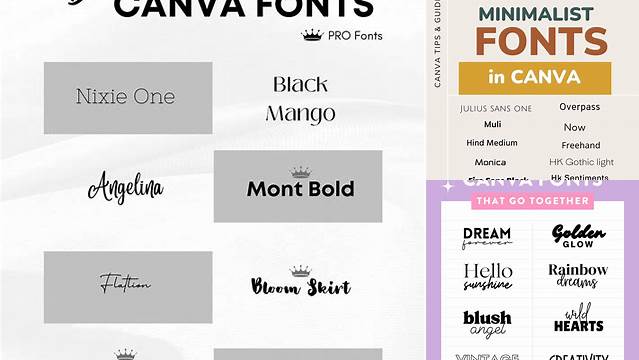
Best Popular Canva Fonts Free: Stunning Designs
Hey guys! Ready to jazz up your designs without spending a dime? Canva, the ultimate design playground, offers a treasure trove of fonts. Choosing the right font can make or break your design. That's why we're diving into the world of popular Canva fonts free, so you can elevate your projects from drab to fab. I'll walk you through some fantastic font options, how to find them, and some tips on using them effectively. Get ready to transform your visuals with some awesome typography!
What Makes a Font 'Popular' in Canva?
So, what makes a font a superstar in the Canva universe? Well, a popular Canva font free isn't just about looking pretty; it's about versatility, readability, and how well it complements different design styles. Popular fonts are often those that strike the perfect balance between aesthetics and functionality. They need to be clear enough to read at any size, versatile enough to be used across various projects, and stylish enough to catch the eye. Think about it – a font used for a bold headline needs to pack a punch, while the body text demands something easy on the eyes. Canva's popular fonts are the workhorses of design, the reliable choices that always deliver. Some fonts are trendy because they're the go-to for specific aesthetics, like a modern, minimalist look. Others are classic choices, timeless and always in style. Ultimately, the 'popularity' of a font is a mix of aesthetic appeal, functional suitability, and, of course, how many designers are actually using it! Canva keeps track of what fonts are trending, often showcasing them prominently in their design interface. So, if you're looking for the cream of the crop, keep an eye on those frequently featured options. Choosing a popular font can be a shortcut to great design, as it means you're using something that's already proven to work. However, don't be afraid to experiment and find fonts that suit your own unique style – even if they're not the most popular ones. After all, design is about expressing yourself, right? Popular Canva fonts free are an amazing starting point, but your creative journey should always be about making something that is uniquely you. The power to create eye-catching designs is in your hands, and with the right font choices, you can really bring your vision to life. Don't be afraid to play around with combinations, sizes, and styles. The goal is to create something that’s both beautiful and effective.
Top 5 Popular Canva Fonts Free for Headings
Let's get down to business, shall we? Here are five awesome free fonts in Canva that will make your headings pop and grab attention. Remember, the perfect heading font should be bold, easy to read, and reflect the vibe of your design. Think of your headings as the billboards of your project – they need to be clear and enticing. Here are some of my favorites that are popular Canva fonts free:
- Poppins: This font is the workhorse of the design world! It’s clean, modern, and incredibly versatile. It’s a sans-serif font with a geometric feel, making it perfect for clean, minimalist designs. It's fantastic for both digital and print projects. Whether you're creating a poster, social media graphic, or website banner, Poppins will deliver a polished, professional look. Because of its high readability, it also works well for body text, offering a consistent and cohesive feel across your design. If you need a go-to font that's both stylish and practical, Poppins is your best bet. This font is a safe and smart choice, as it is extremely popular and many designers are using it. When you want something reliable and contemporary, Poppins is the way to go.
- Montserrat: Are you looking for a font with a bit of flair but still easy to read? Montserrat is an excellent choice. Inspired by the architecture of the Montserrat neighborhood in Buenos Aires, this font has a strong, geometric shape. Its readability and versatility make it ideal for headlines, subheadings, and even short blocks of text. Its clean lines and balanced letterforms give your designs a modern and sophisticated edge. It's a great choice when you want to add a touch of style without overwhelming your design. You can try Montserrat in posters, presentations, or even in your website's navigation menus. It's a fantastic font that enhances the impact of the headings while maintaining a clean aesthetic. It's a solid pick for any project that requires clarity with a modern touch.
- Oswald: Oswald is a condensed sans-serif font, making it a brilliant choice for headings where you need to fit a lot of text in a small space. This font looks super stylish and it's very clean and readable, even at larger sizes. It's perfect for headlines that demand attention without taking over the whole design. Oswald works particularly well in digital media, where screen space is often limited. This font gives a modern edge to your projects. It is best for projects that need a modern, bold, and attention-grabbing headline. It is great for web designs, infographics, or any project that needs a strong, impactful headline.
- Bebas Neue: Need a bold statement? Bebas Neue is a tall, sans-serif font that commands attention. This font is super popular for headlines because of its strong presence and clean lines. It's perfect for grabbing the viewer's eye and conveying a sense of confidence and style. It is an amazing font for anything from social media posts to posters and website banners. It's not really for body text, but for headings, it’s a total knockout. Bebas Neue has a great impact when it is at a larger size, making it ideal for titles and headlines that need to stand out. It’s definitely one of the popular Canva fonts free that you should be considering.
- Roboto: Last but not least, we have Roboto, a modern and versatile font that’s a favorite for its readability and clean design. Roboto is incredibly versatile, making it suitable for a wide range of projects. It has a friendly, approachable feel while still maintaining a professional look. This font is also great for both headings and body text. It's a solid choice for any project where you need a font that is easy to read and looks great. Roboto is perfect for those who want a font that's both functional and stylish. Roboto is among the most used popular Canva fonts free.
Best Popular Canva Fonts Free for Body Text
Alright, let's talk about body text. This is the text you want people to actually read, so the choice of font is crucial. Body text needs to be clear, easy to read at smaller sizes, and blend well with the overall design. Here are some stellar options from the popular Canva fonts free collection.
- Open Sans: Open Sans is an incredibly versatile sans-serif font known for its excellent readability. It is one of the most widely used fonts on the web. It has a clean, neutral appearance. It works incredibly well for both digital and print projects. Its open letterforms make it easy to read in various sizes. If you need something clean, simple, and reliable, Open Sans is an excellent choice. Open Sans is a top choice for designers because it is easy to read and incredibly versatile. It's ideal for long-form content. You will find it works well in everything from website articles to reports and documents. Open Sans is a reliable, everyday workhorse that will ensure your body text is easy to read and your design looks professional.
- Lato: Lato is another fantastic sans-serif font that strikes a great balance between readability and style. It has a warm, friendly feel, making it perfect for projects where you want to create a welcoming impression. Its slightly rounded letterforms make it easy on the eyes, and it works well in both headings and body text. If you want a font that's both stylish and readable, then Lato is a brilliant pick. Its friendly appearance makes it ideal for a wide range of projects, including blogs, articles, and presentations. Lato is an excellent choice for any project requiring clear and appealing body text.
There you have it – the lowdown on some of the best popular Canva fonts free to elevate your designs! Armed with these tips and font suggestions, you’re now ready to create stunning visuals that captivate and communicate. Always remember to let your creativity guide you, and most importantly, have fun! Keep experimenting with different fonts, layouts, and designs. The more you play around, the better you'll get at choosing the perfect fonts for your projects. Now go out there, and create something amazing! Happy designing, everyone!